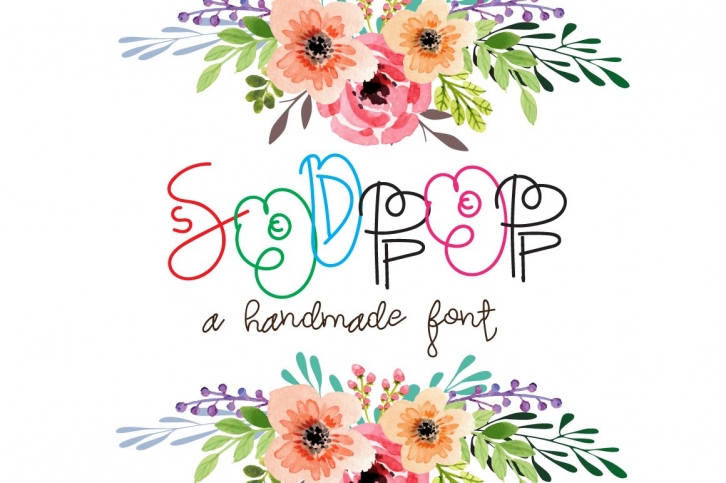
Sodpop is a modern decorative script font with tones of alternates, every single letters have been carefully crafted to make your text looks beautiful. With modern script style this font will perfect for many different project ex: quotes, blog header, poster, wedding, branding, logo, fashion, apparel, letter, invitation, stationery, etc.